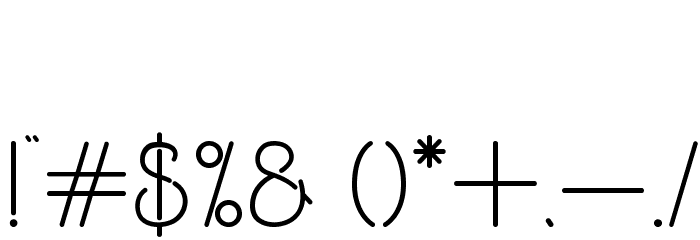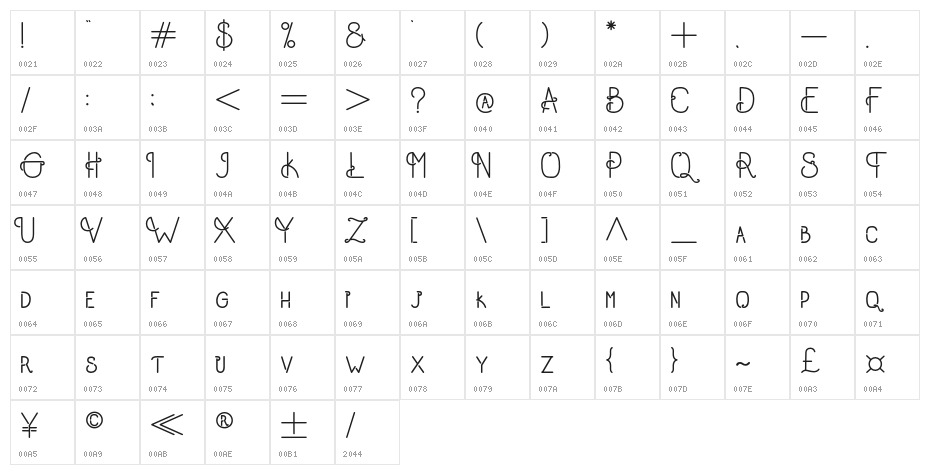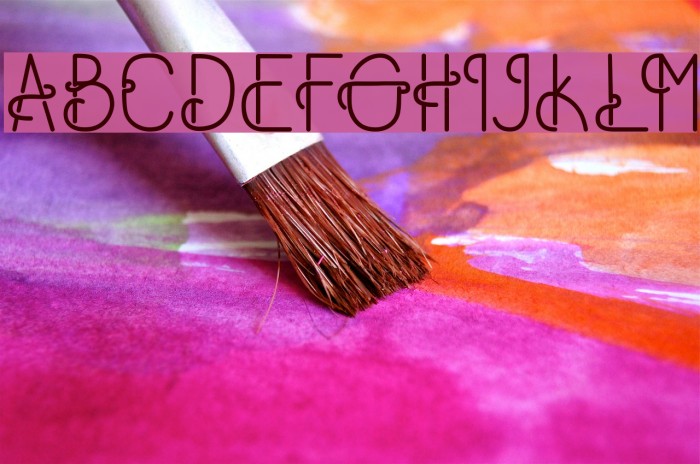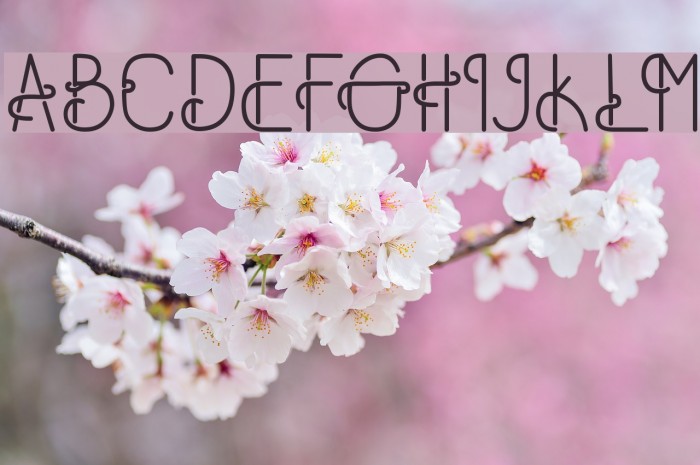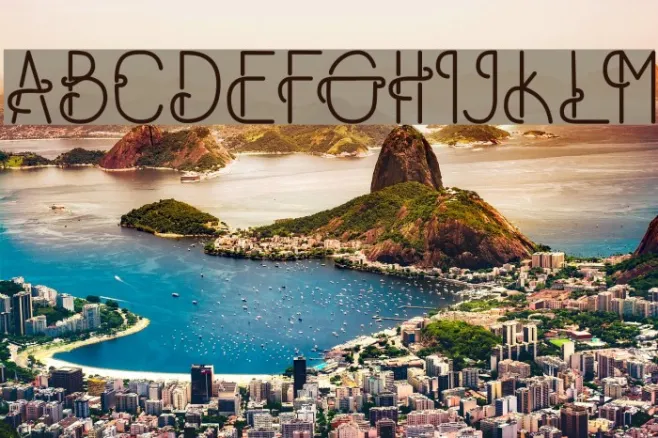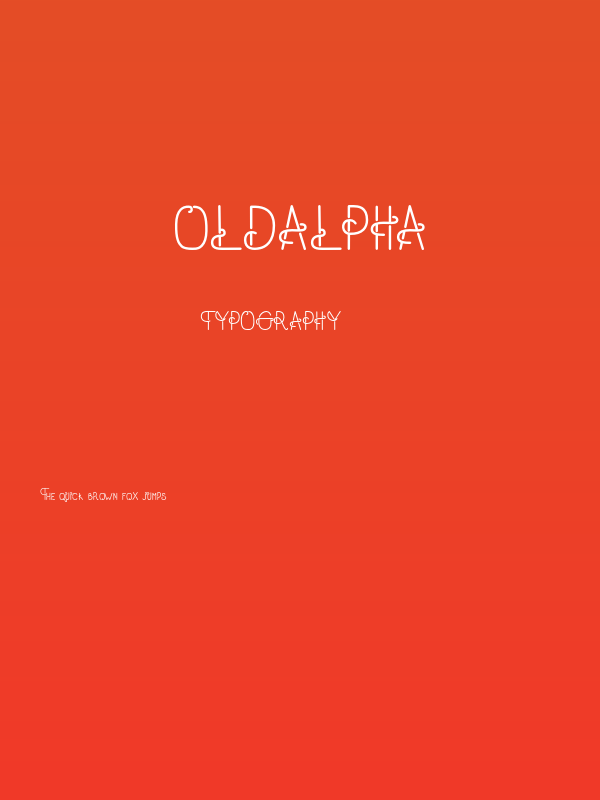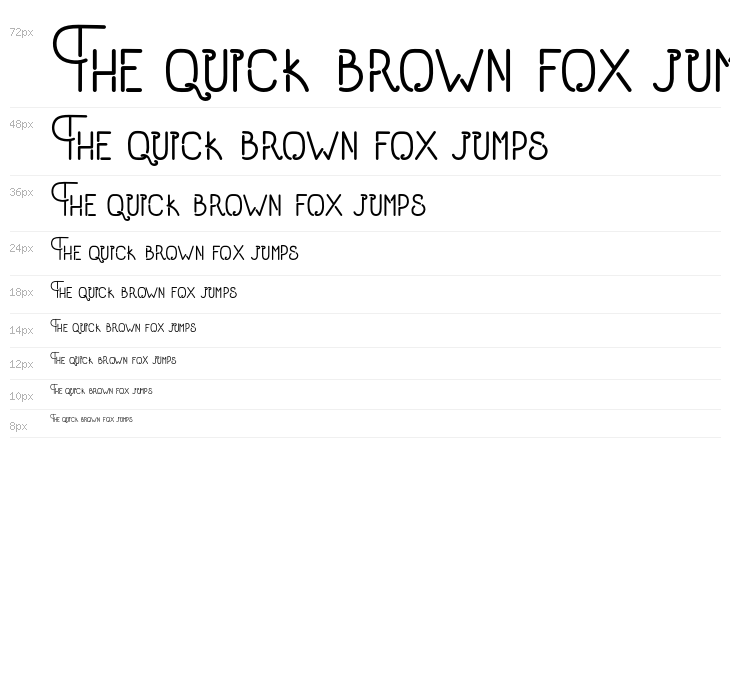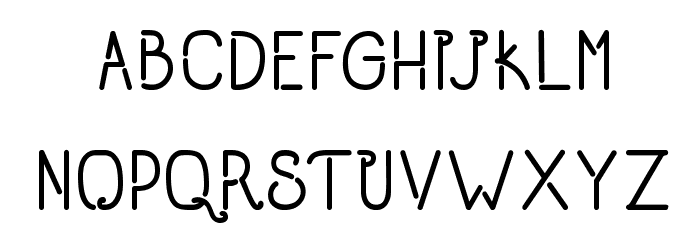
OldAlpha Font
OldAlpha Description
This font features a unique and artistic design with a playful twist. The uppercase letters are characterized by their intertwining lines and loops, creating a sense of movement and fluidity. The lowercase letters maintain a similar style, with some characters incorporating subtle curls and swirls. The numerals and special characters follow the same whimsical theme, making the font suitable for creative and decorative purposes. The overall appearance is modern yet reminiscent of vintage typography, offering a blend of elegance and creativity.
| Use Case | Headlines, Logos, Decorative text |
| Proposed Projects | Ideal for creative projects such as invitations, posters, branding, and artistic designs. |